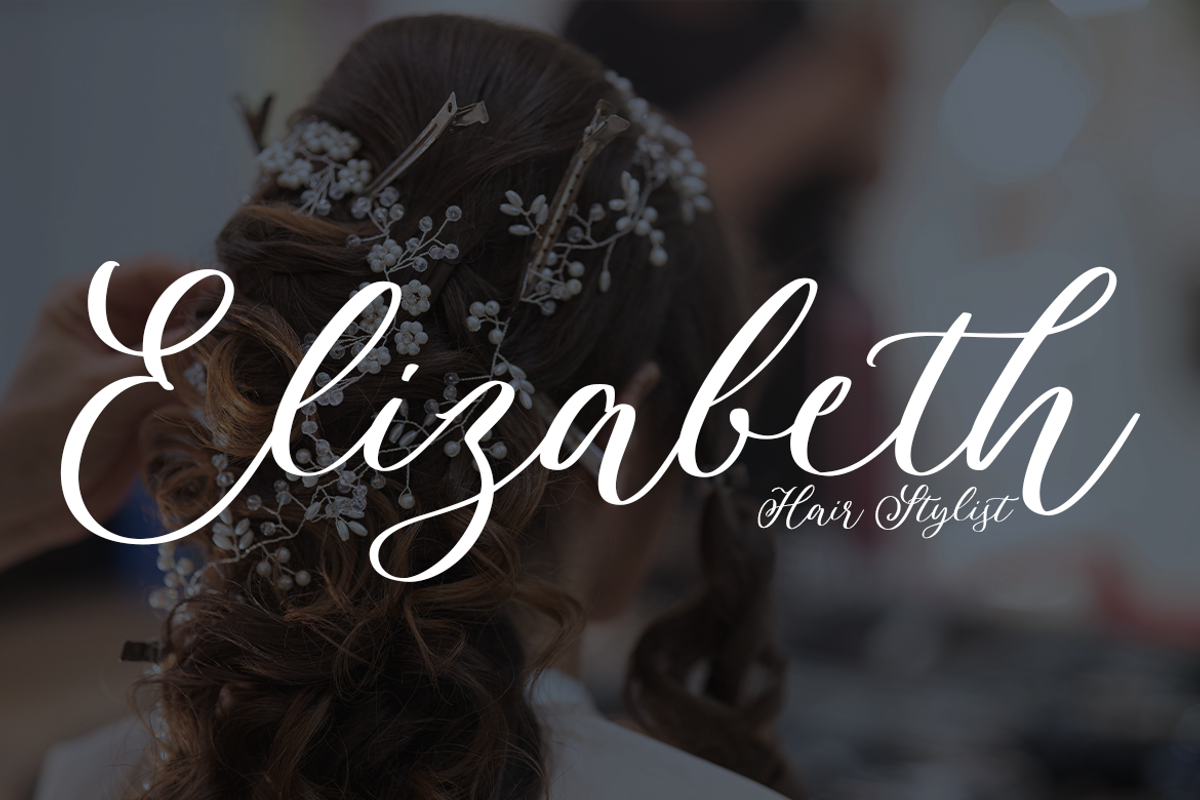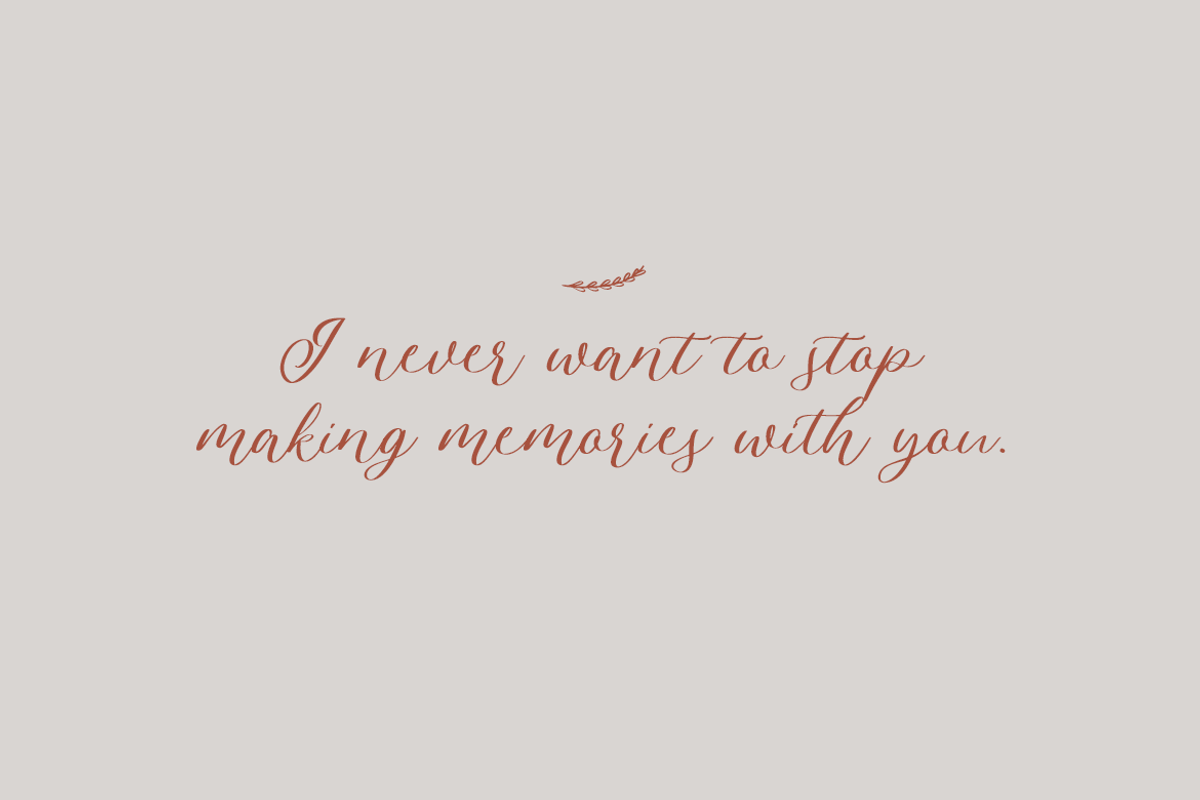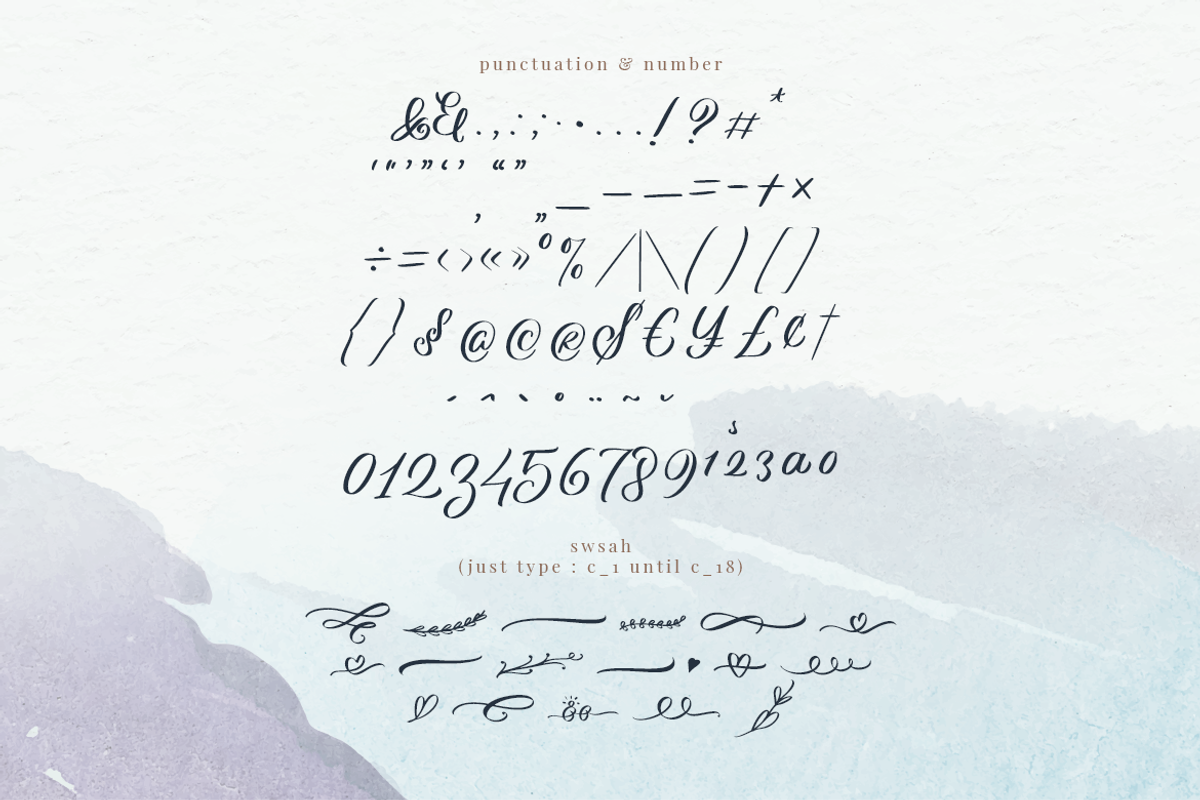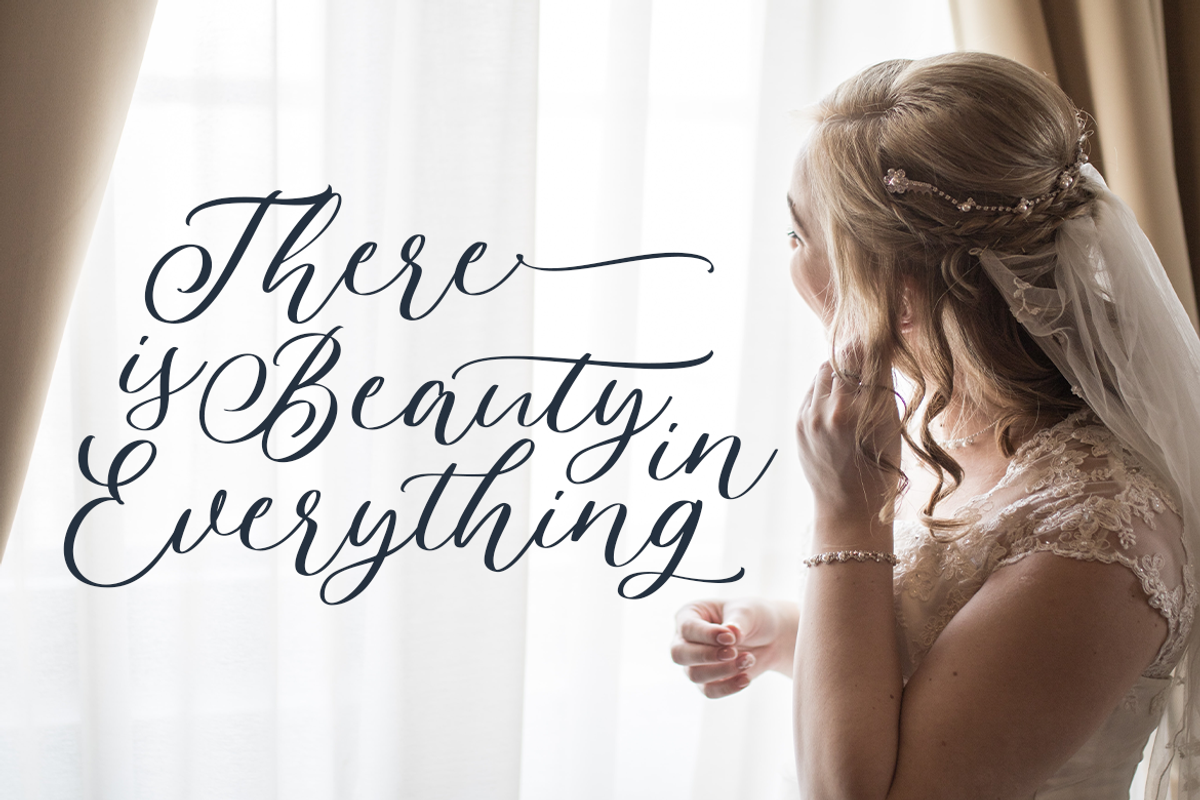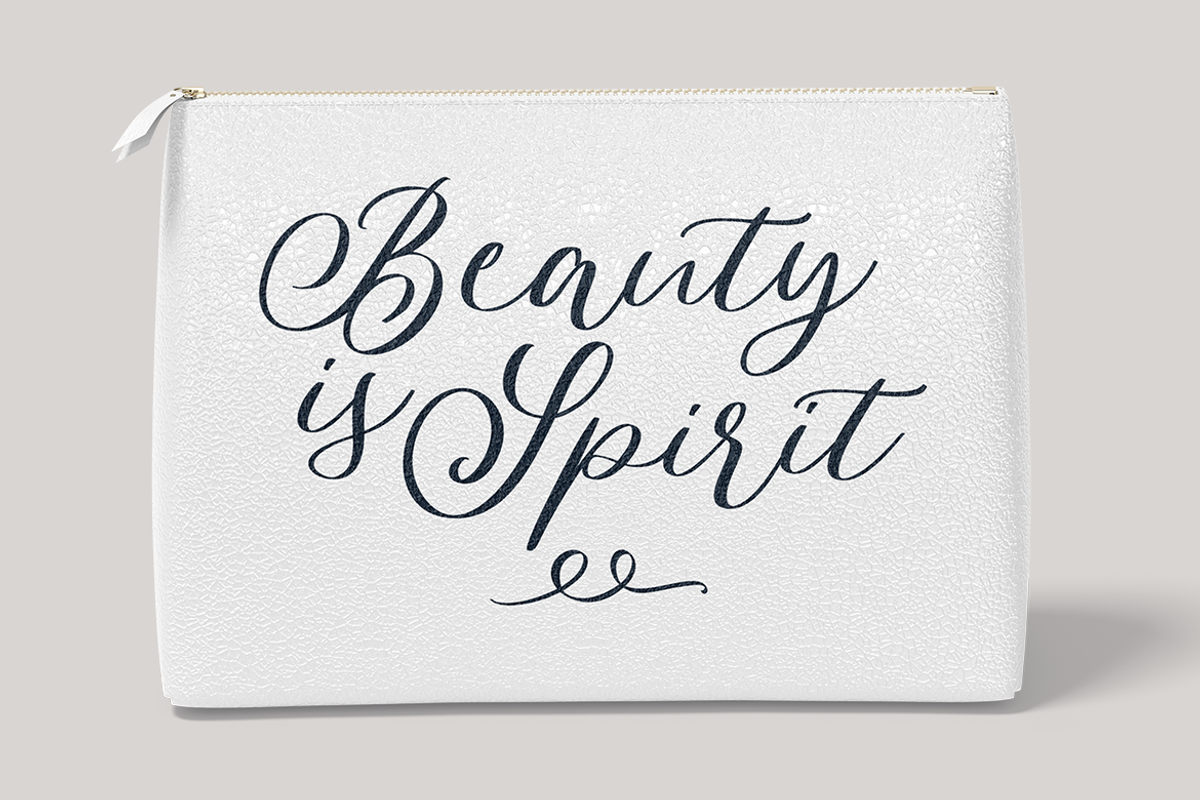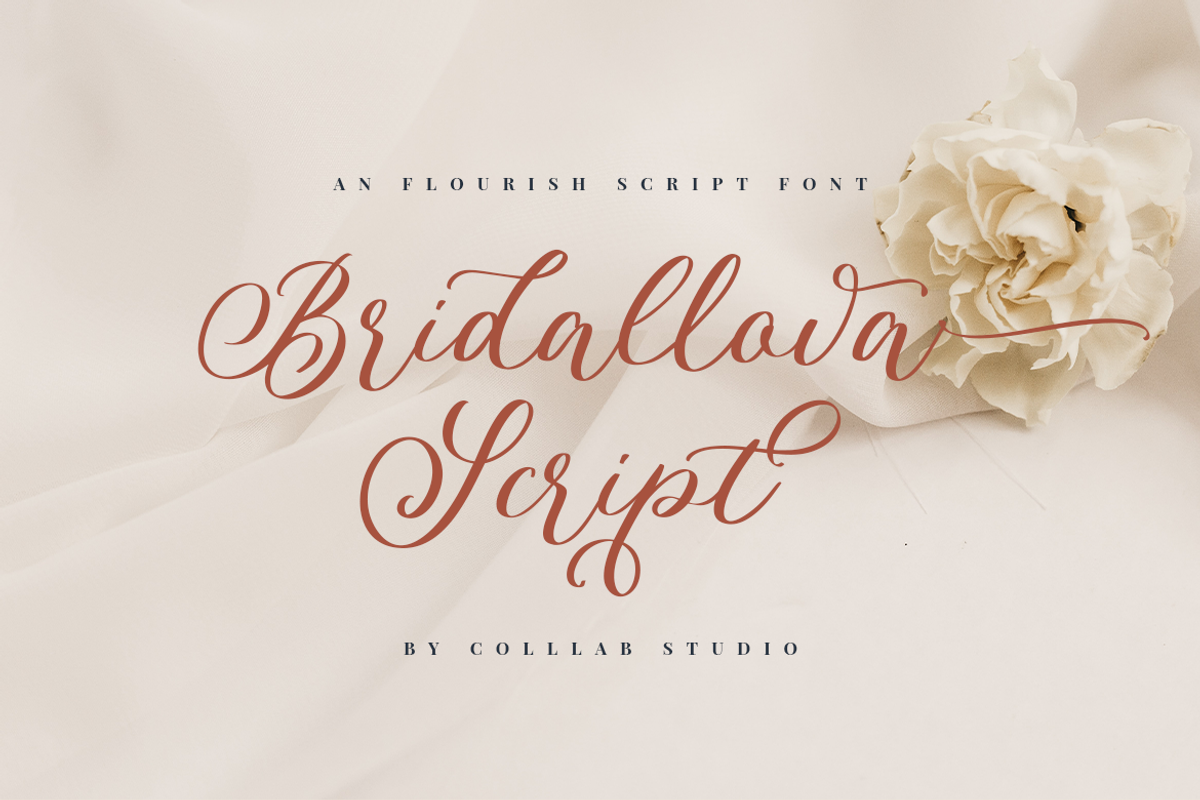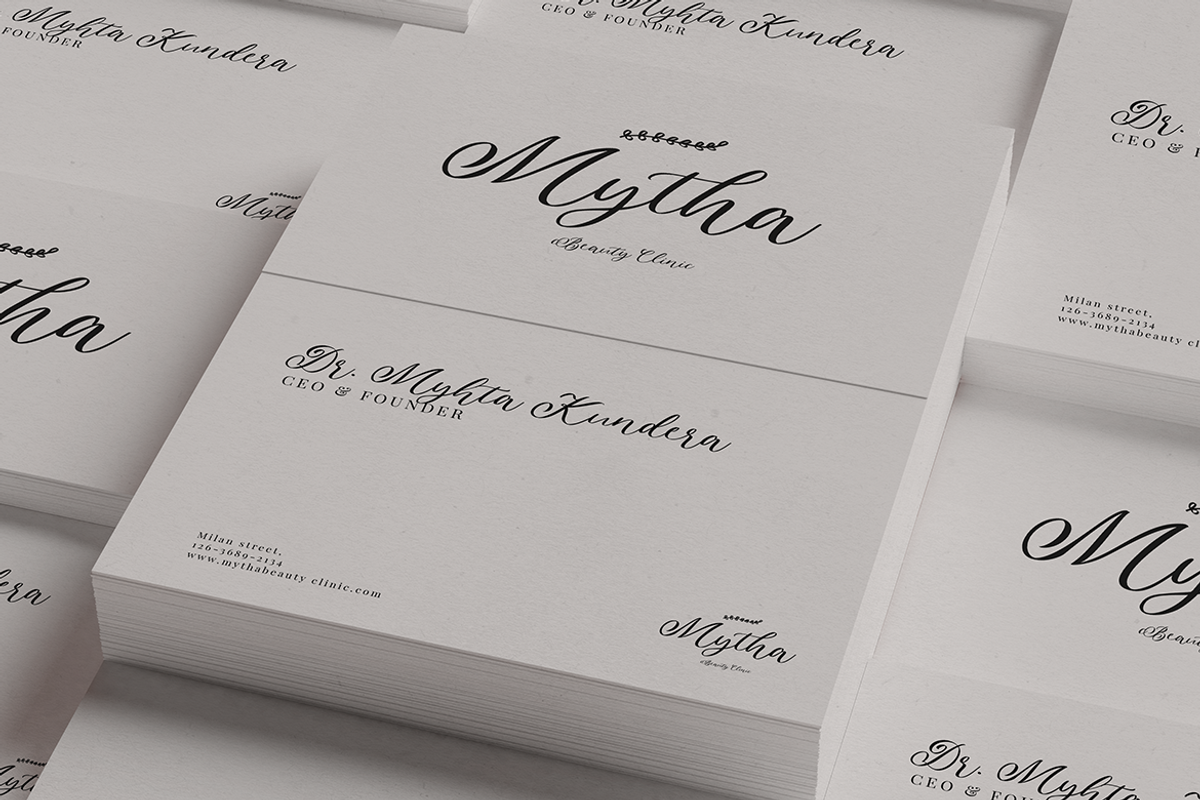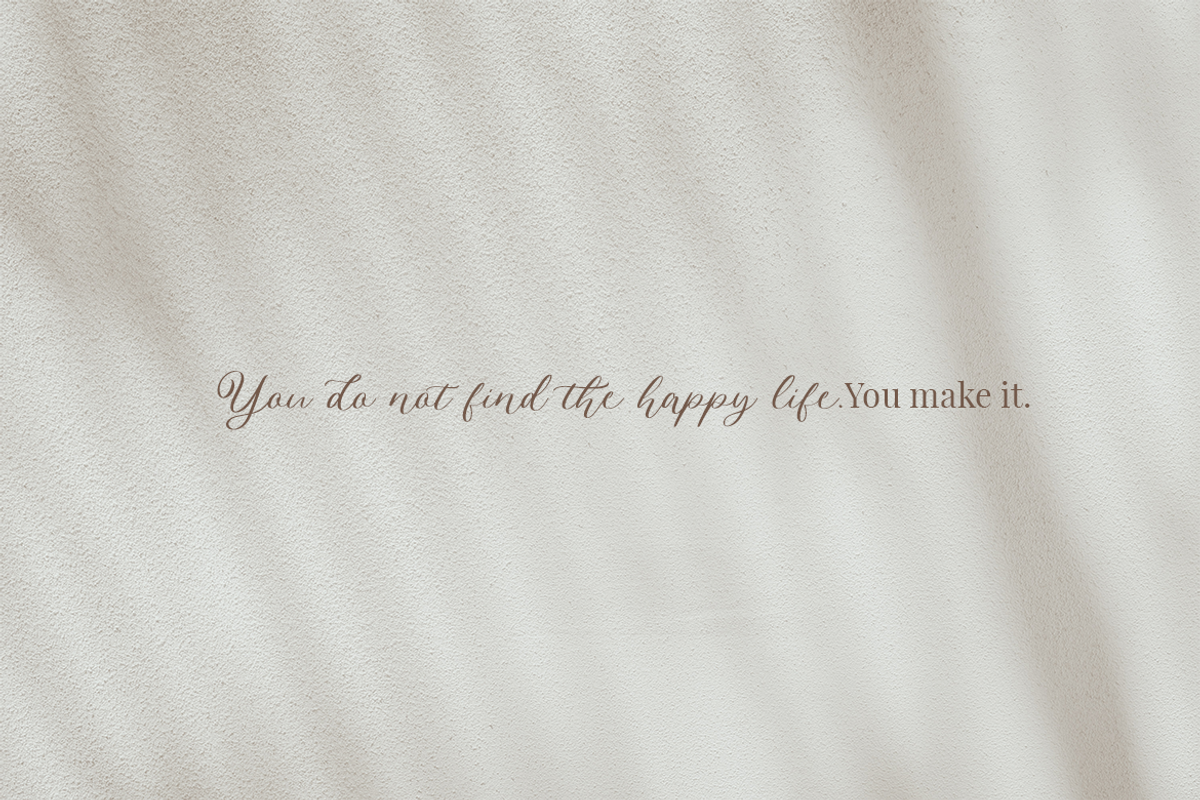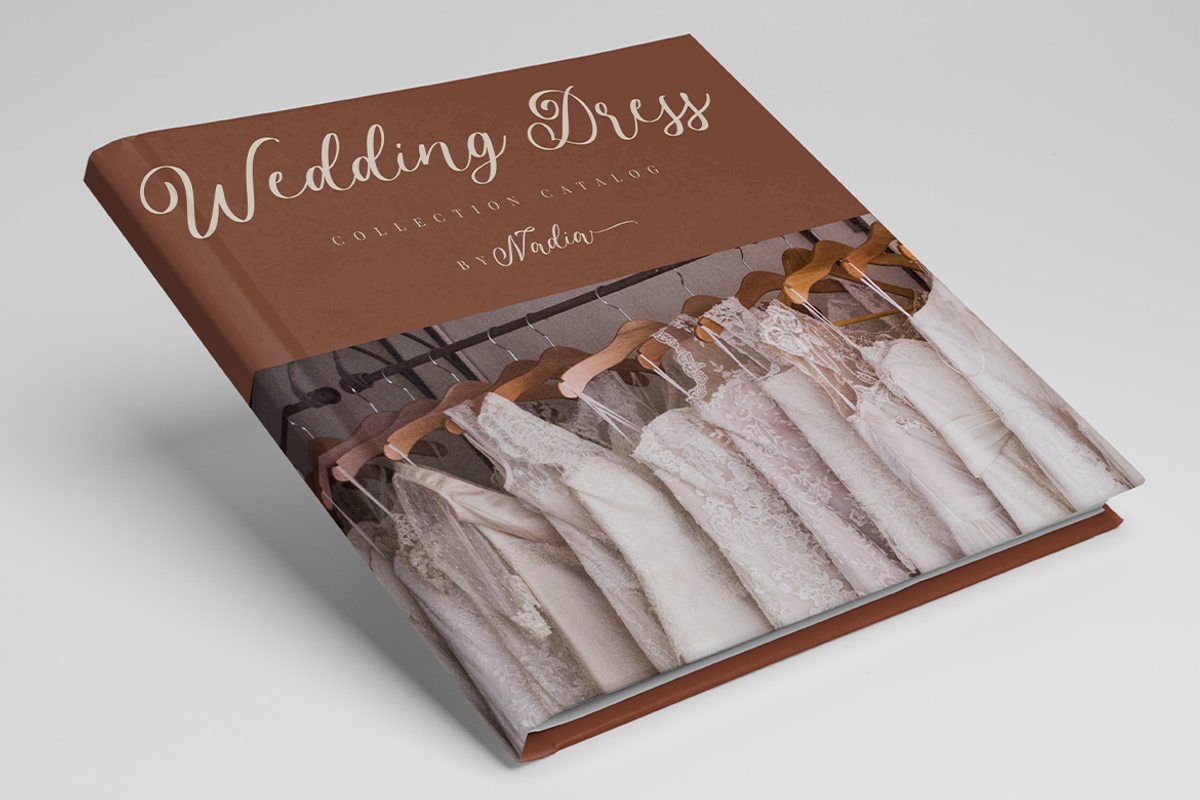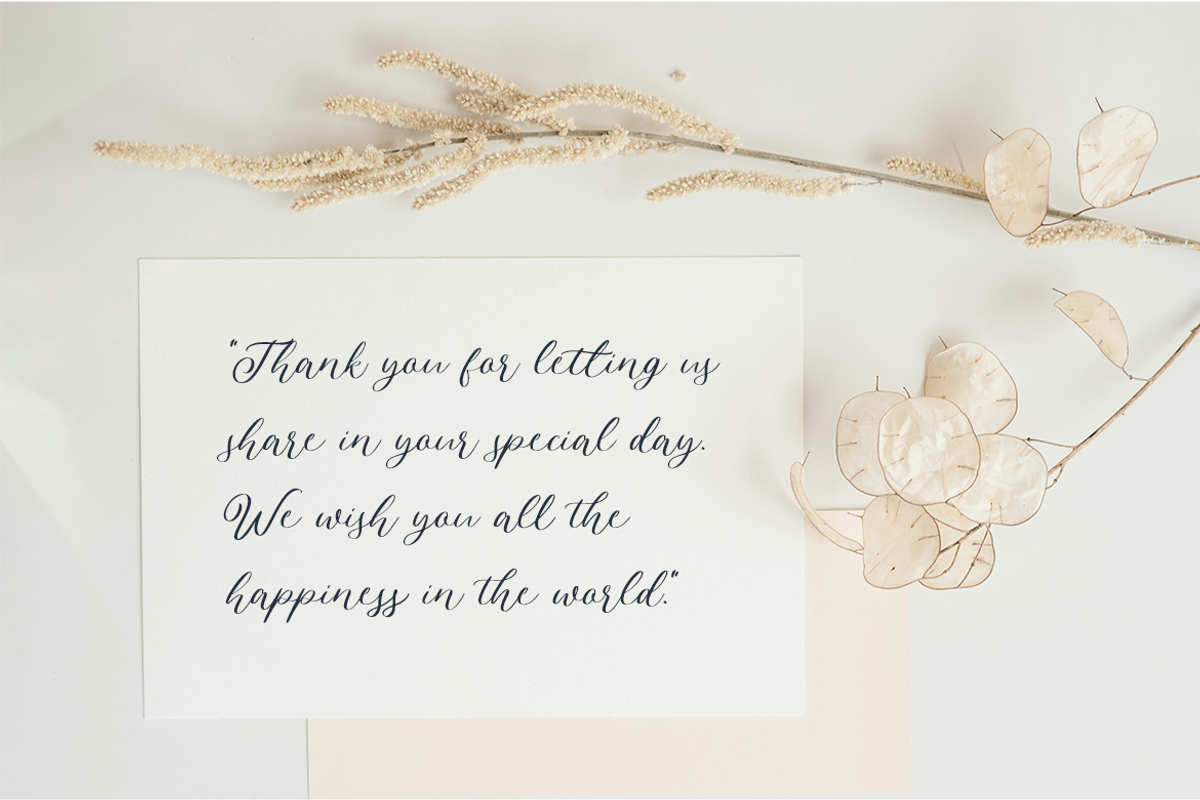
Bridallova Script
As a bride, you are going to want everything to be perfect on your wedding day! but the one thing that some of your guests may not notice immediately is the font and design used on the stationary. Bridallova can be used to create stunning invitations that you and your husband-to-be will cherish for years to come.
Bridallova will lend an elegant touch and perfect adorning wedding invitations, baby shower invitations, birth announcements and more.
- 298 Glyps,
- 70+ Stylistic Alternates
- Ligatures & stylistics alternates
- Multilanguage Support ( 64 Languages )
- Set of beginning and ending swashed.